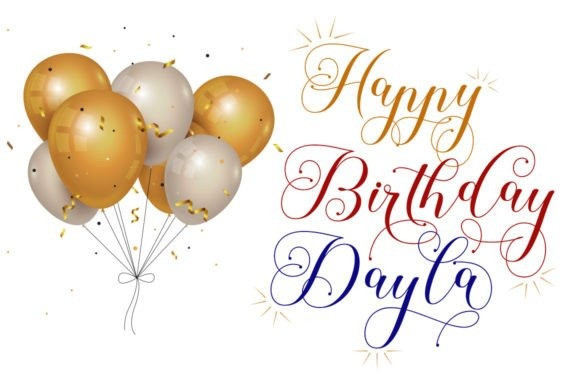
Starla Font
Starla is an enchanting handwritten font. This versatile script font has a wide spectrum of applications ranging from greeting cards to headlines and is guaranteed to add a romantic feel to your next project. This font is PUA encoded which means you can access all the glyphs and swashes easily!